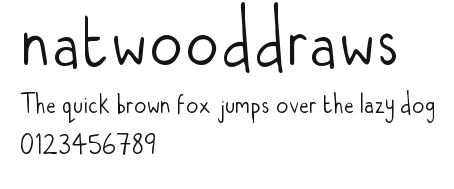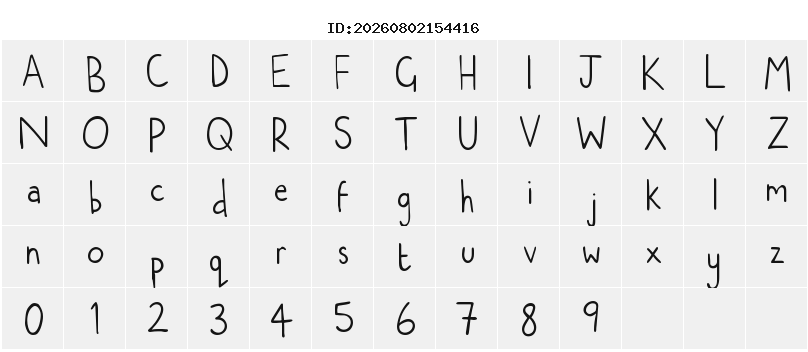
• Font Name: natwooddraws
• Designer: Natalie M Wood
About natwooddraws.ttf
natwooddraws.ttf is a modern, elegant sans-serif font designed for ultimate readability and visual harmony. Perfect for branding, headlines, web design, and print materials.